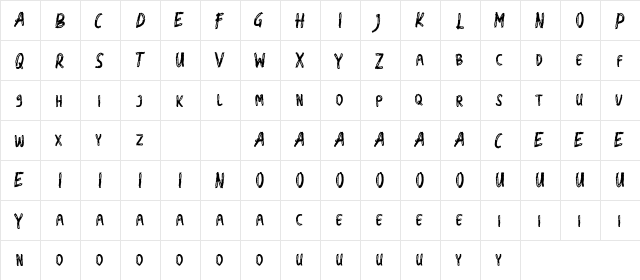
Swag Ghost Demo Regular
| Foundry | Edric Studio |
| Designer | Ali Arif Rahman & Sarah Suci Pauziah |
Design Context for Swag Ghost Demo Typeface
Swag Ghost Demo is a composed and adaptable typeface that performs quietly and consistently across a wide range of design contexts.